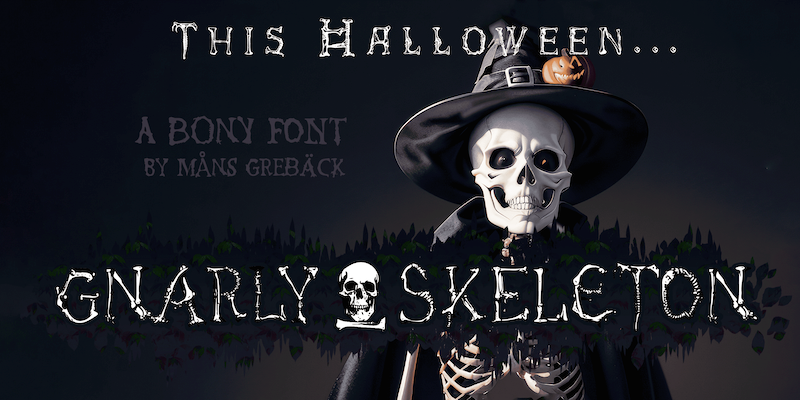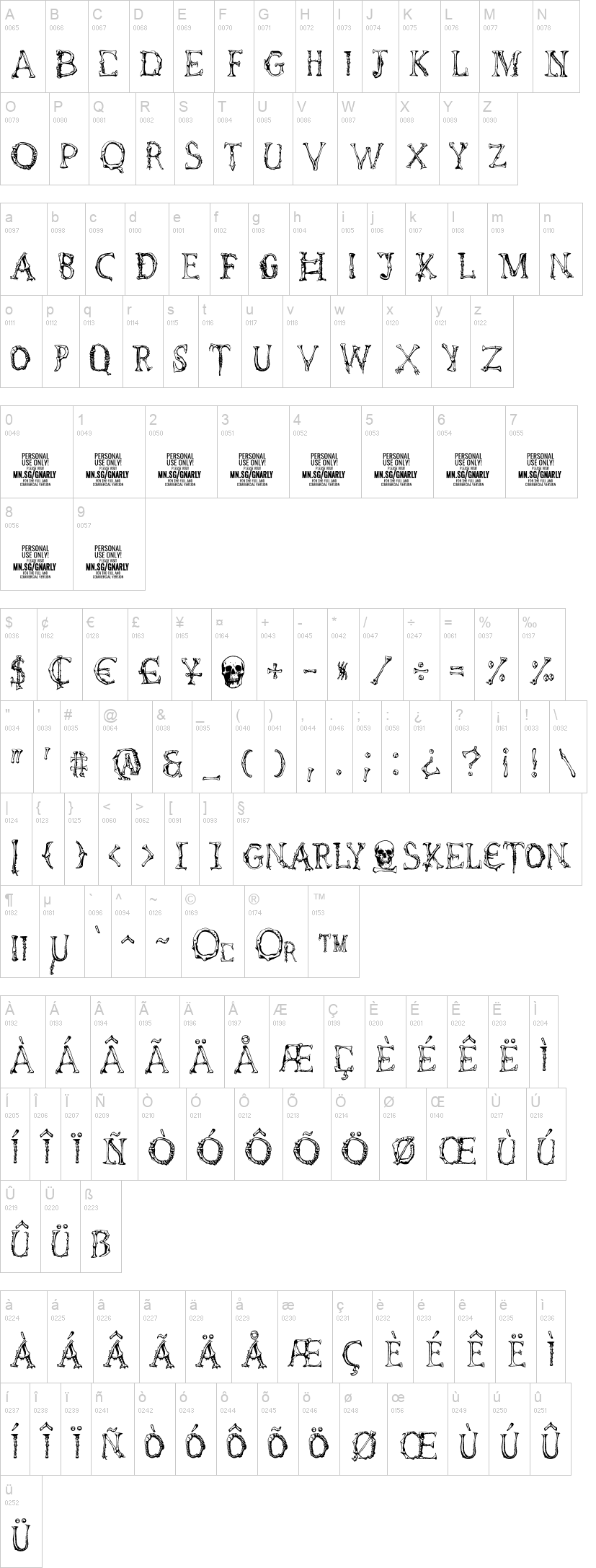
Gnarly Skeleton presents a chilling yet enthralling spectacle in the realm of typeface design.
With characters composed of intricately interlocking skeletal fragments, it exudes an ominous aura that is as captivating as a midnight thriller.
Use the currency symbol ¤ to make a skull.
Example: haLl¤weEn
Use multiple to make different skulls.
Example: ¤¤¤¤¤Darkness¤¤¤¤